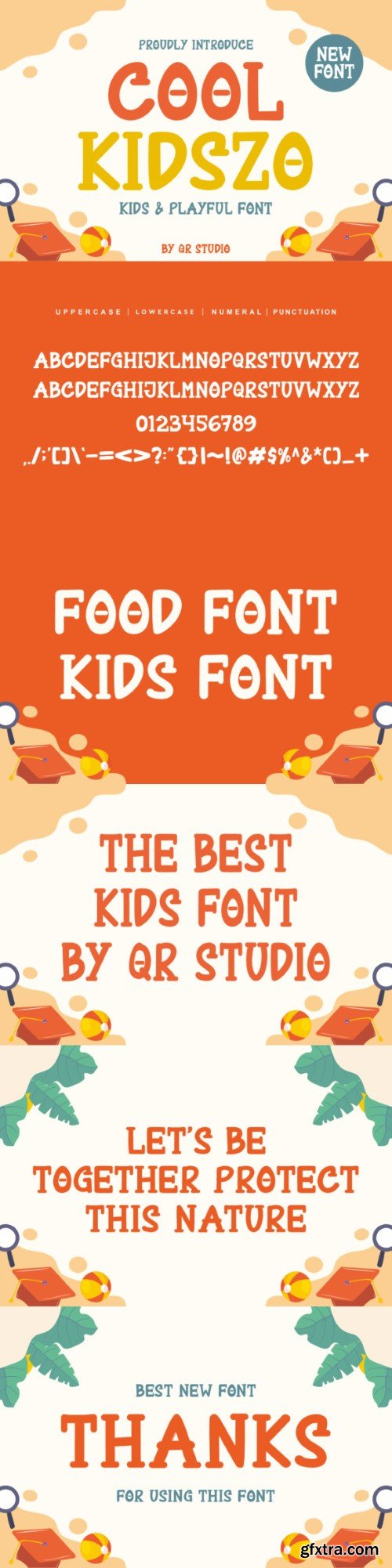
酷Kidszo 字体
Cool Kidszo is an incredibly cool and unique display font. It has a modern yet
whimsical style and it will undoubtedly immerse your designs into a magical world.